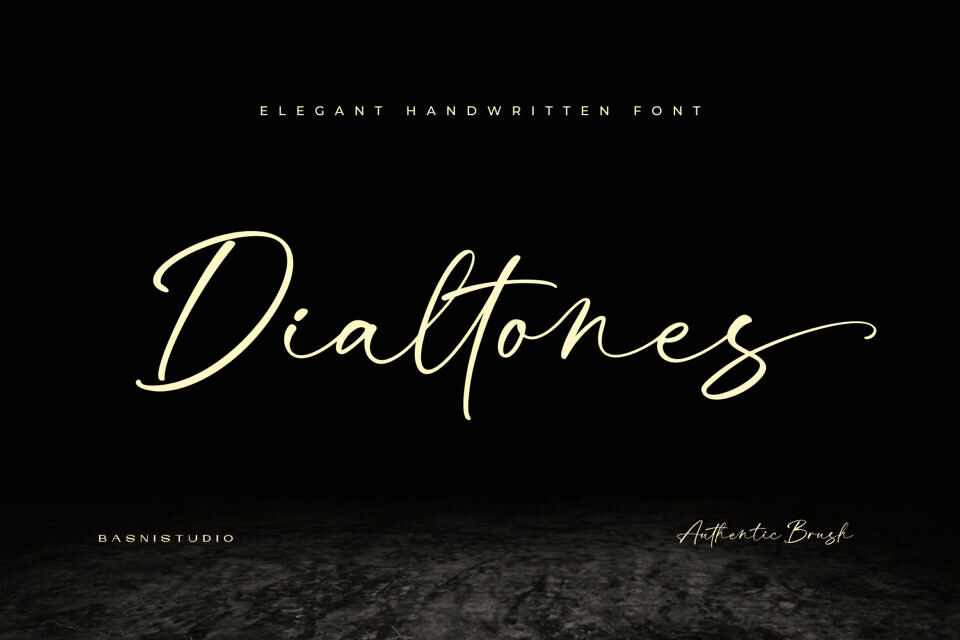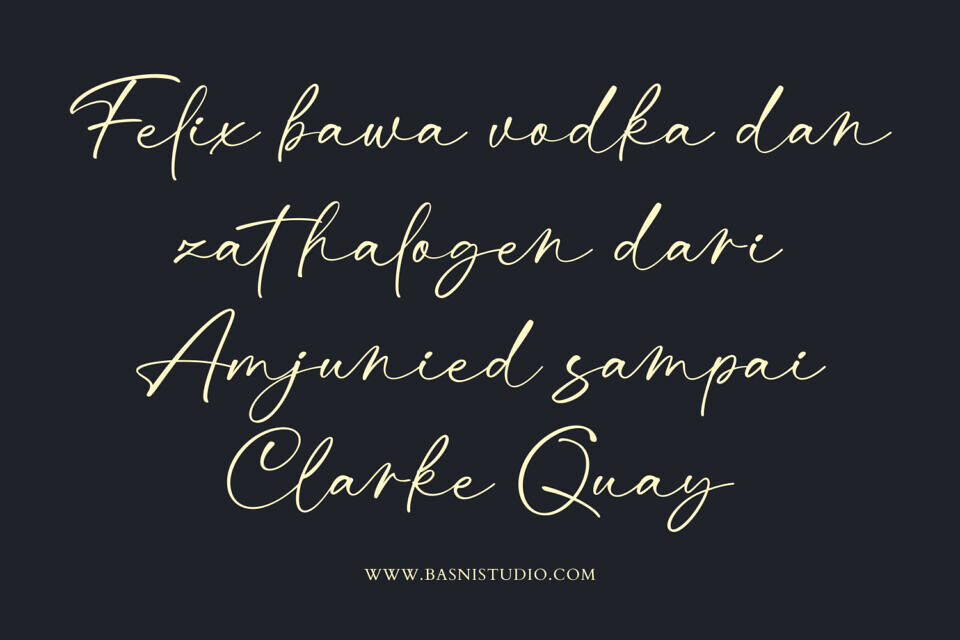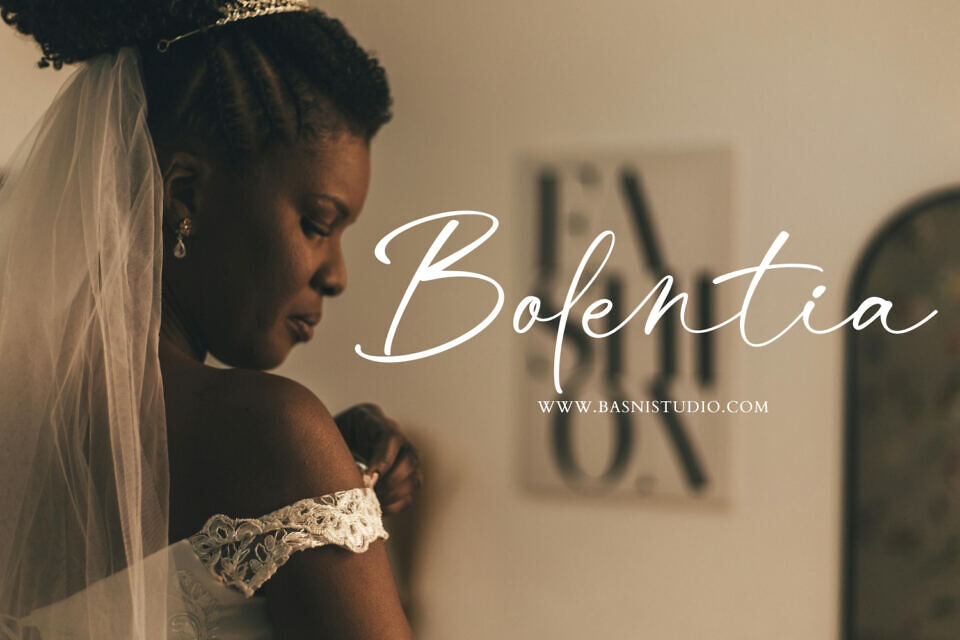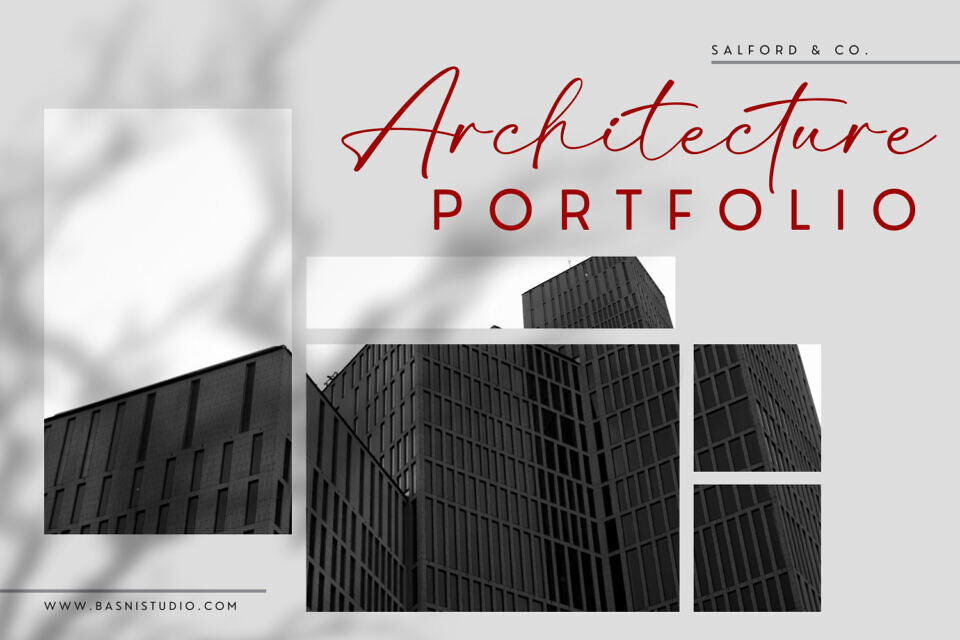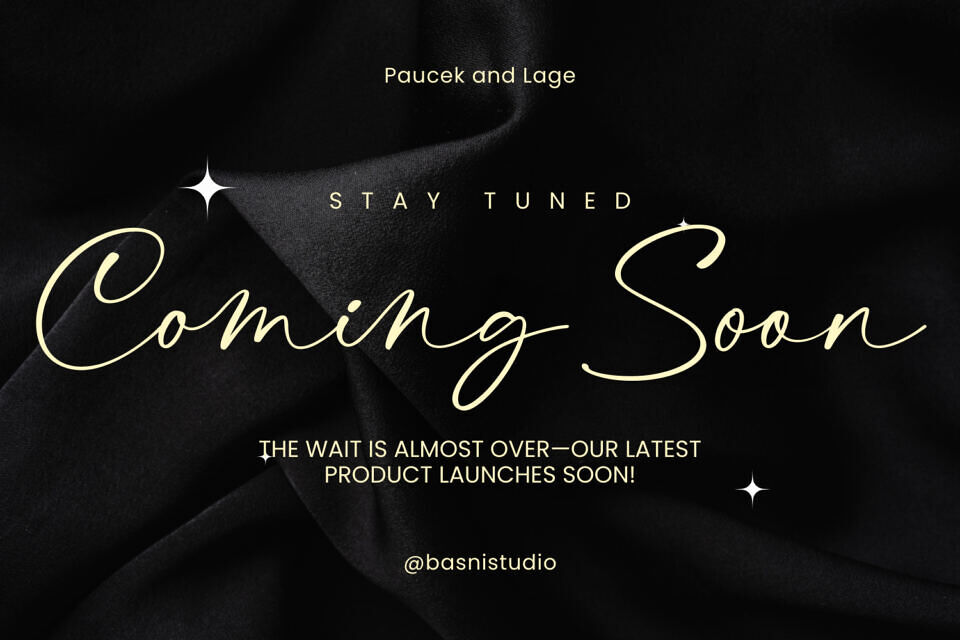
Experience refined elegance with Dialtones, a luxurious handwritten font. Its long ascenders and delicate brush strokes evoke high-end calligraphy, perfect for fashion editorials, logos, and premium events.
The organic texture adds a personal touch, making it ideal for jewelry branding, packaging, and quote art. Pair it with minimalist photography for a serene, professional look. With its natural feel and ease of use, Dialtones is great for taglines, quotes, and more, giving your designs a creative edge.